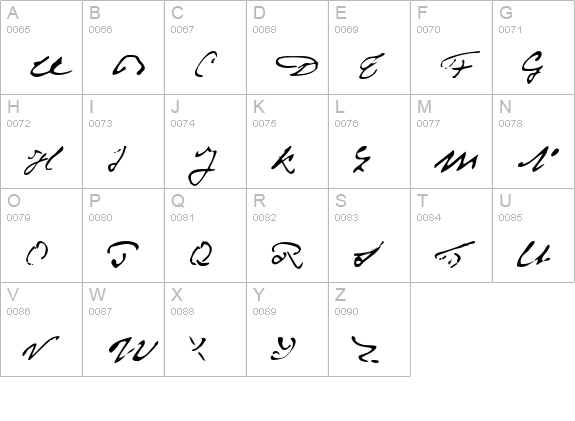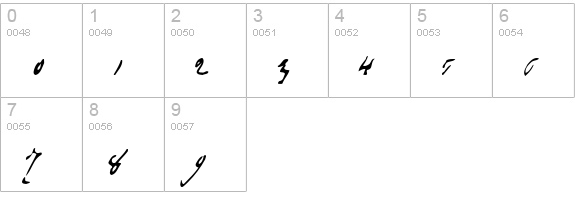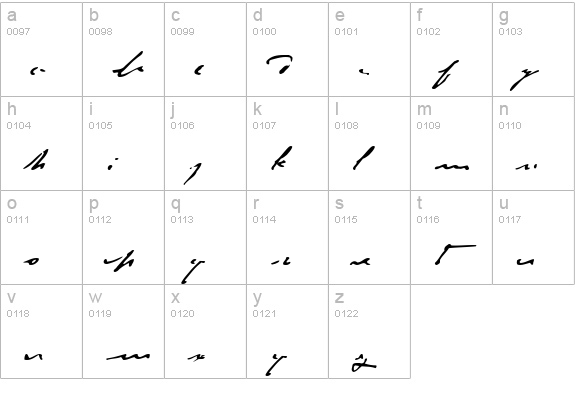
P22Monet Impressionist Font Details
P22Monet Impressionist font is a breathtaking typeface that beautifully captures the essence of Impressionist art. Inspired by the iconic brushstrokes of Claude Monet, this font brings a sense of movement, emotion, and spontaneity to your design projects. With its delicate and fluid letterforms, P22Monet Impressionist font evokes a sense of painterly elegance. Each character is meticulously crafted to mimic the brushstrokes found in Monet's renowned masterpieces, allowing you to infuse your designs with the same artistic flair. Whether you are working on a poster, a book cover, or a website, P22Monet Impressionist font adds a touch of artistic sophistication to any project. Its versatility makes it suitable for a wide range of applications, from elegant branding to expressive headlines. One of the most remarkable features of P22Monet Impressionist font is that it is freely available to download at FontsMarket.com. This means that you can enjoy the beauty and artistic charm of this font without any cost. Simply visit FontsMarket.com, search for P22Monet Impressionist font, and download it to start adding a touch of Impressionism to your designs. With P22Monet Impressionist font, you can effortlessly create designs that pay homage to the Impressionist movement, capturing the spirit of Monet's brushstrokes and the vibrant colors of his palette. So, why wait? Download P22Monet Impressionist font today and let your creativity flow freely like the strokes of a painter's brush.